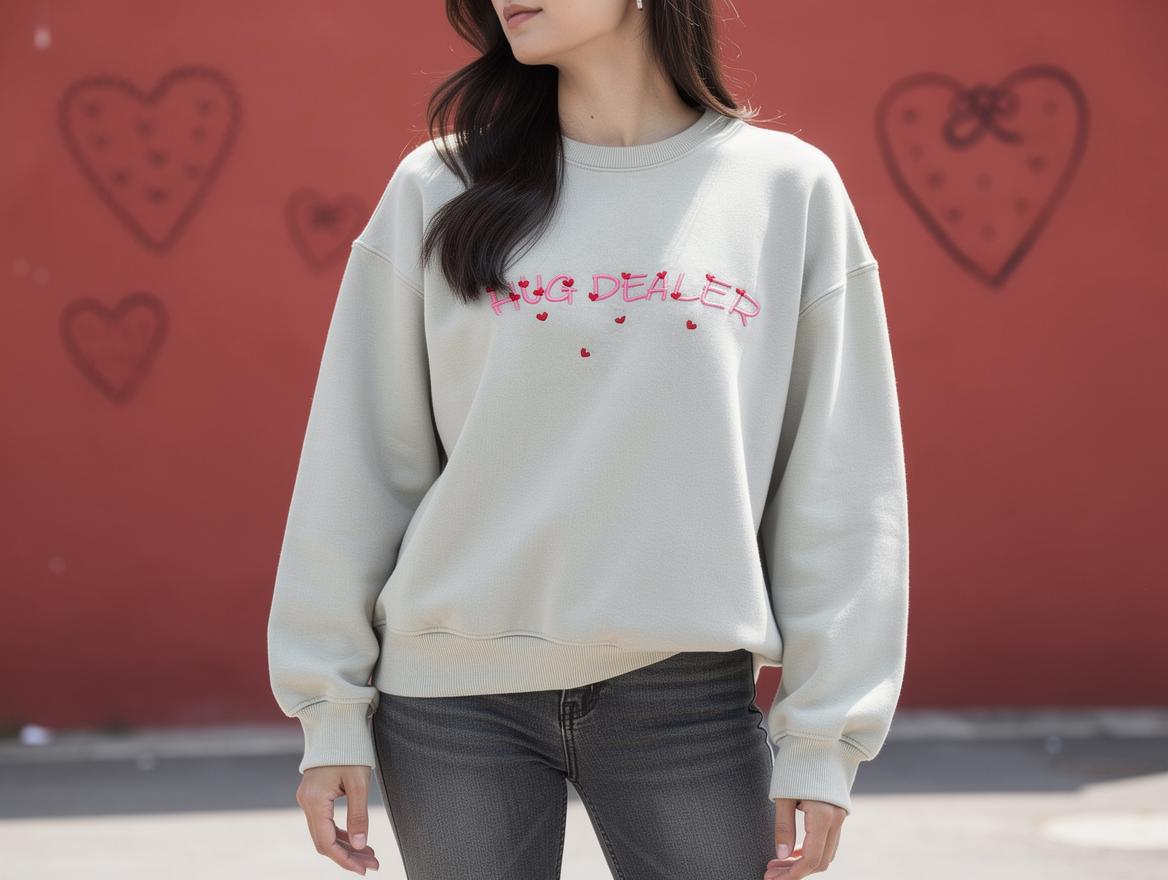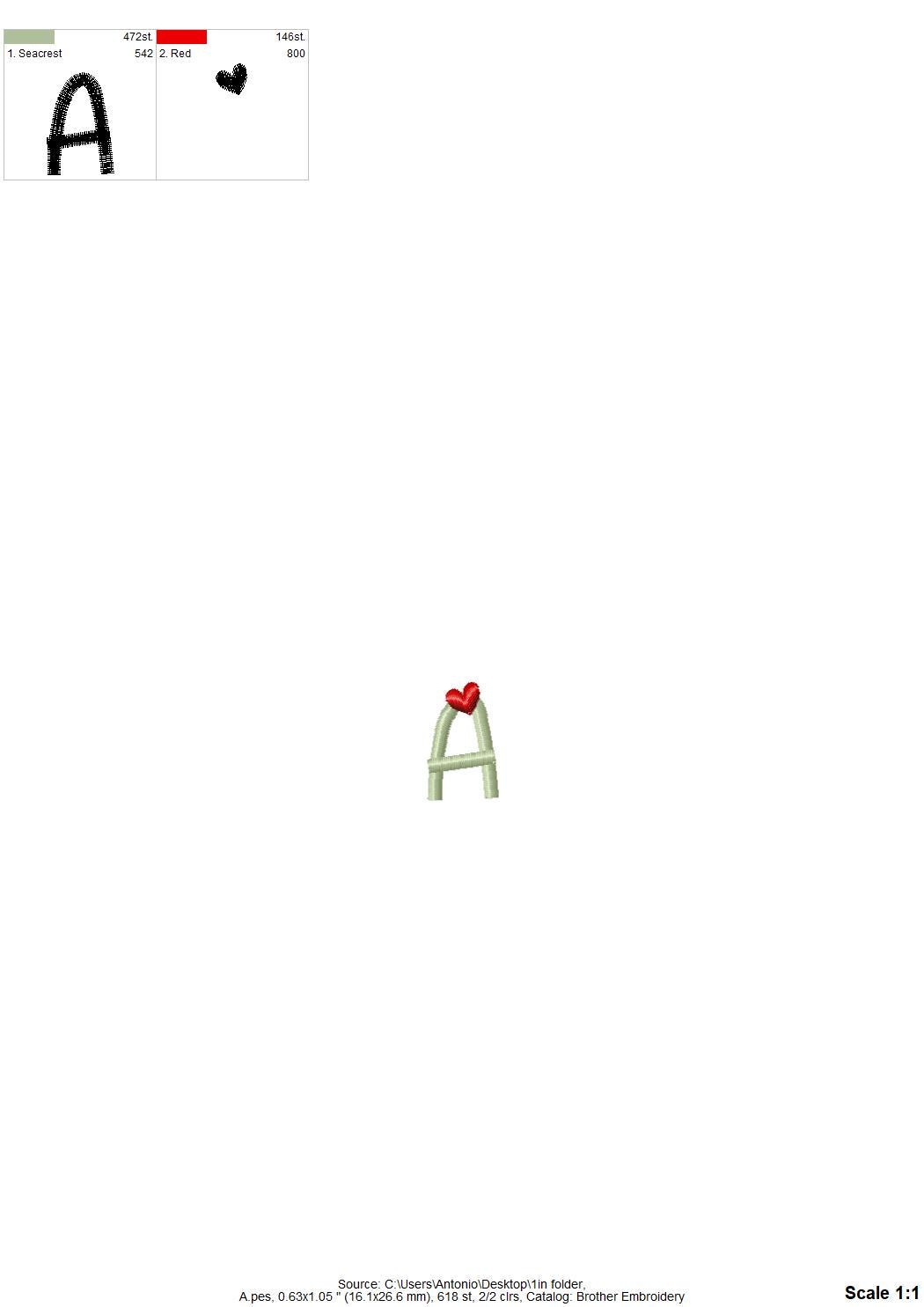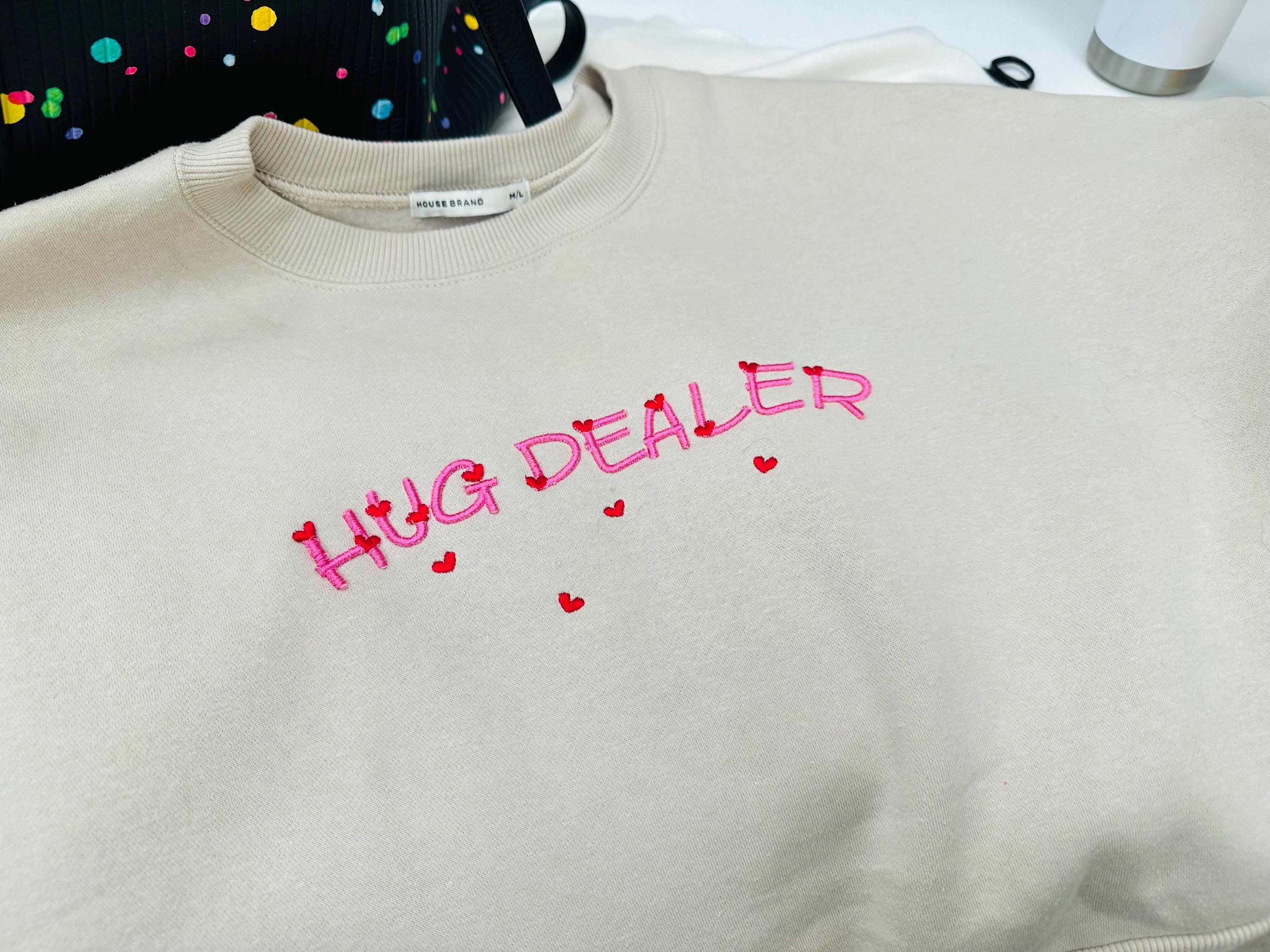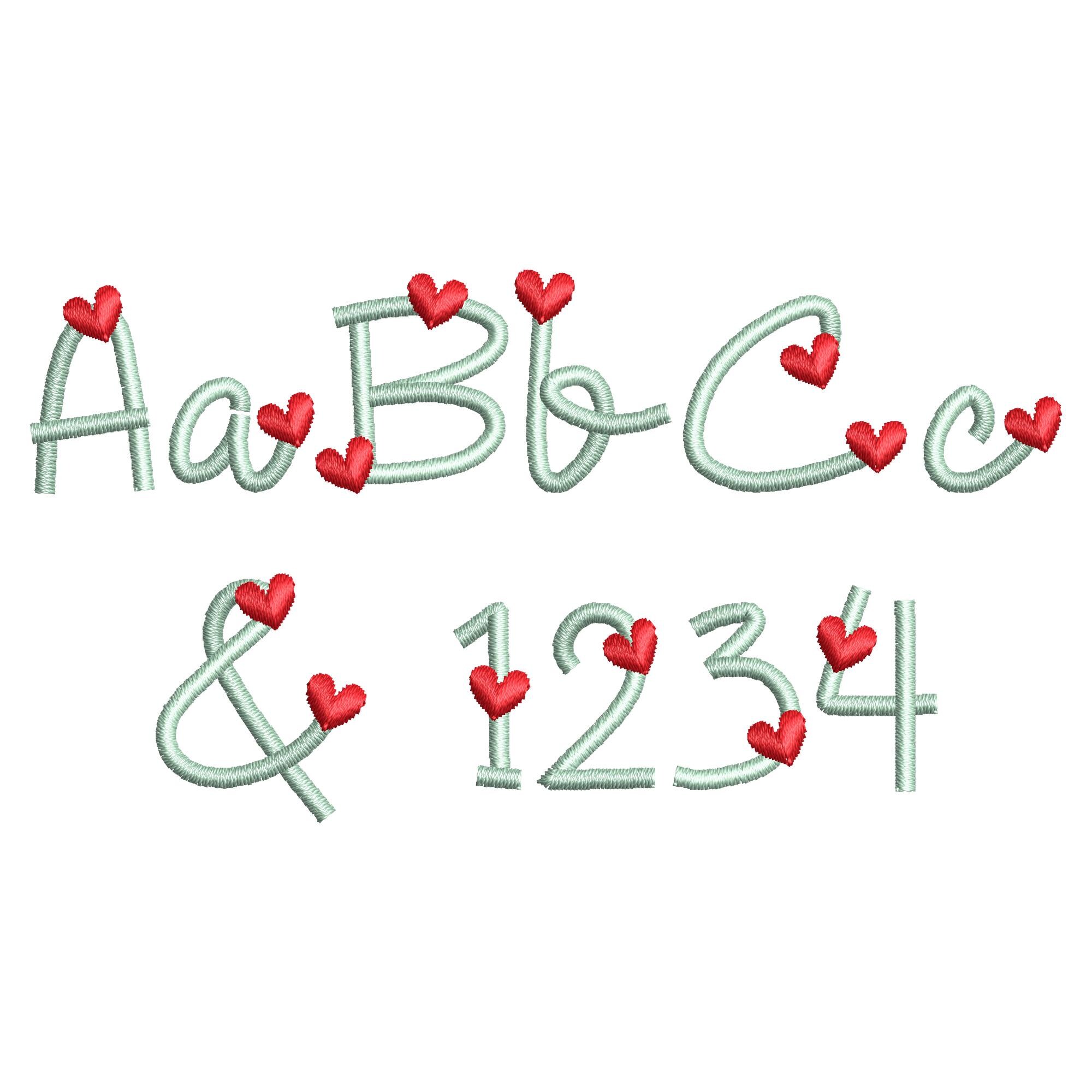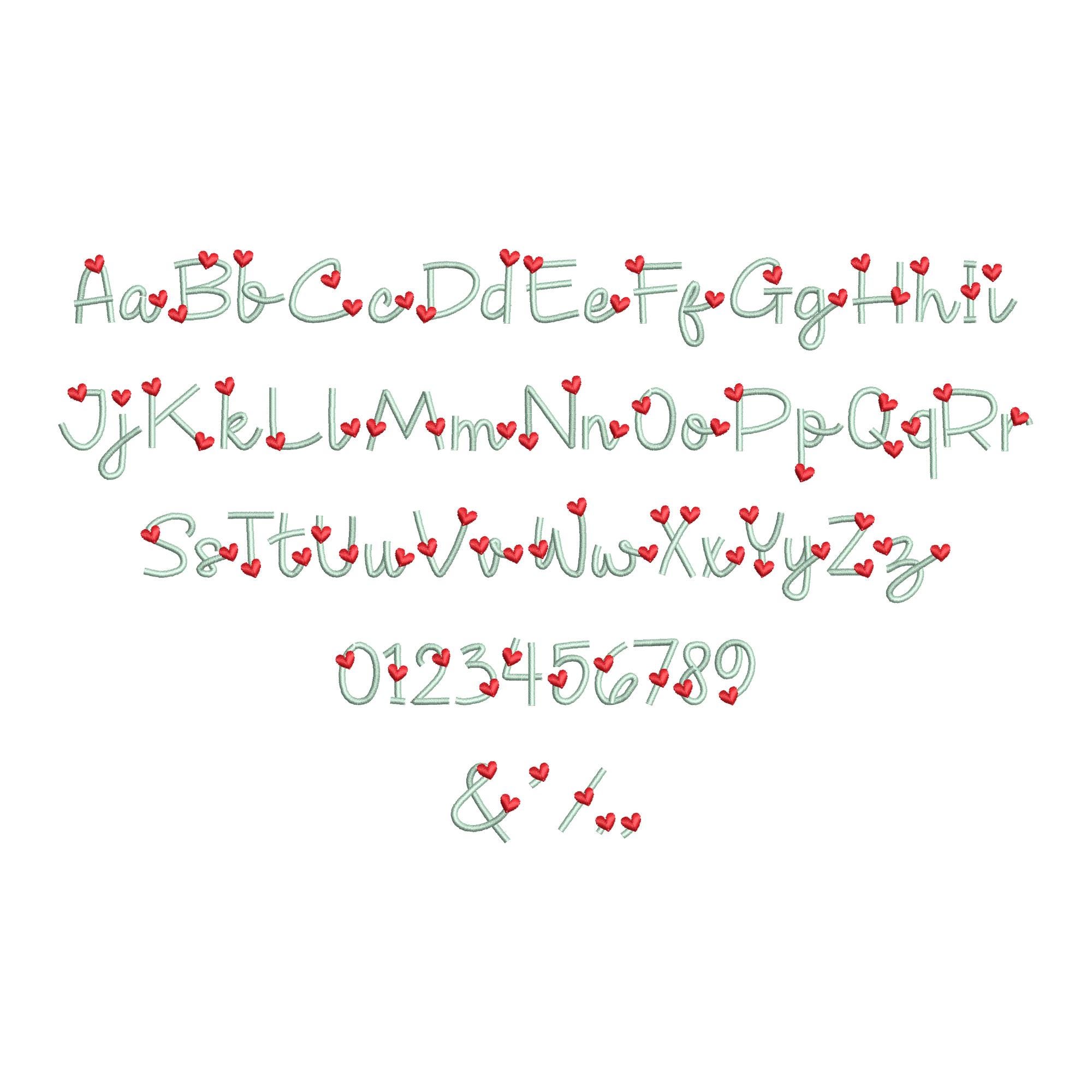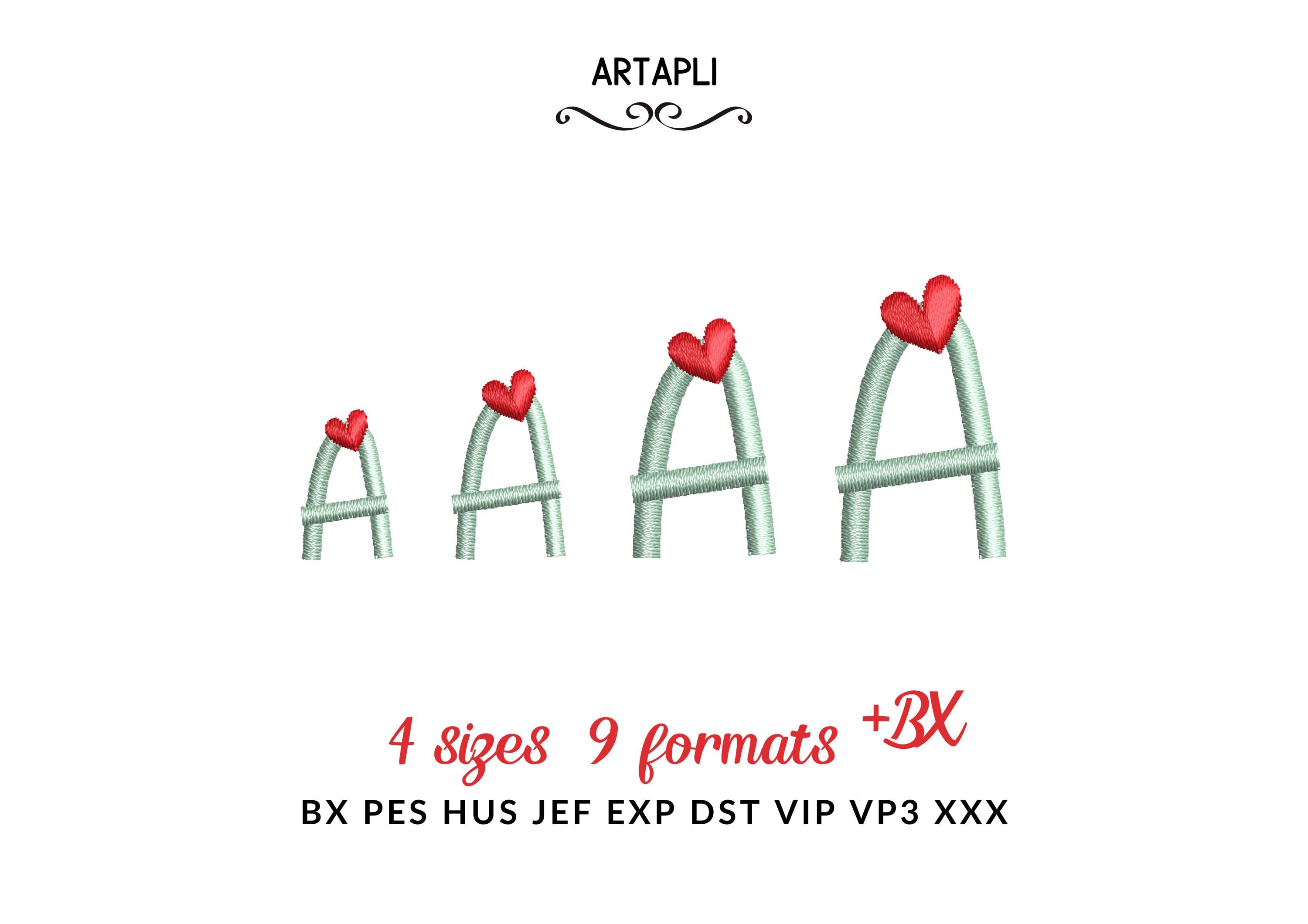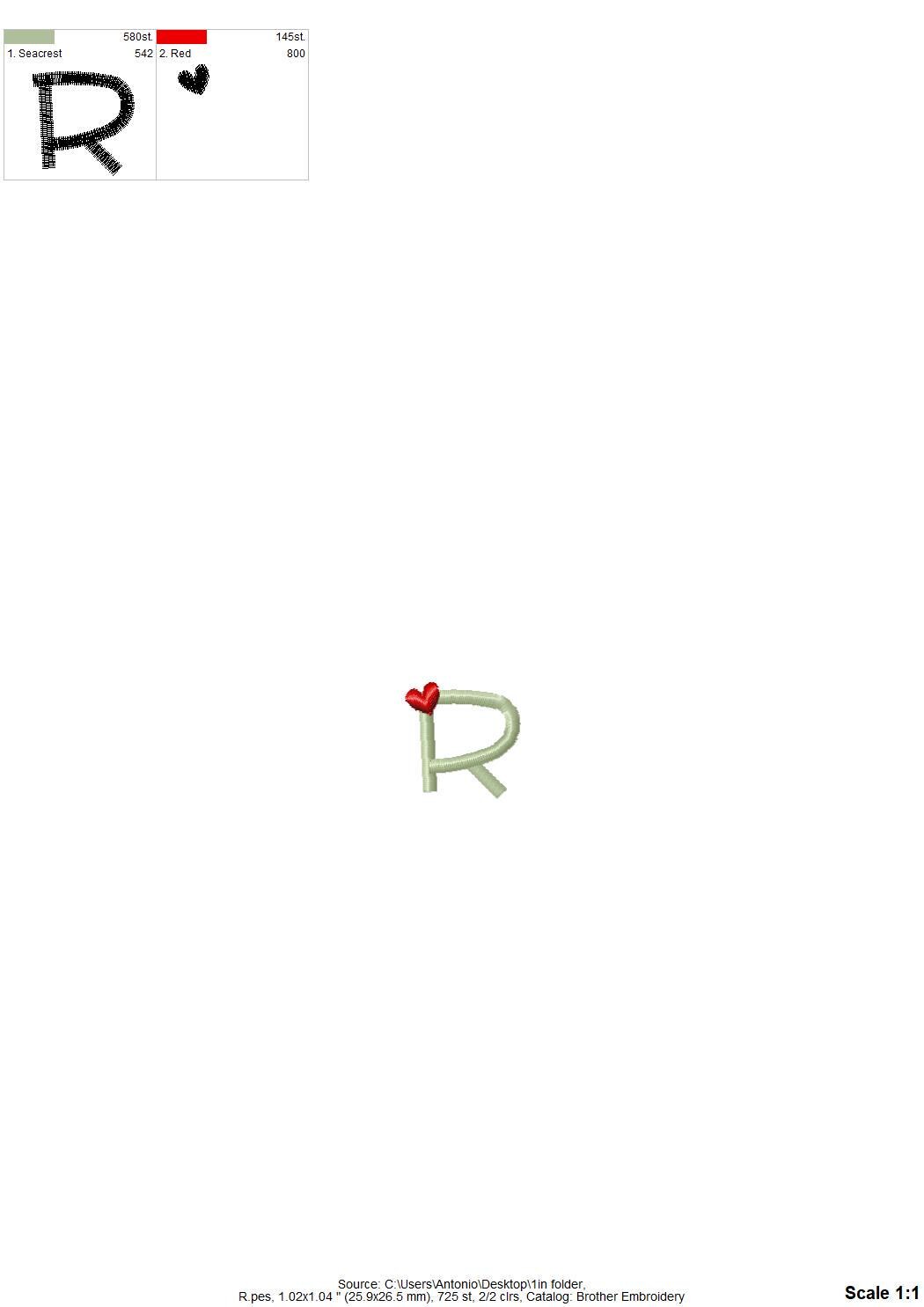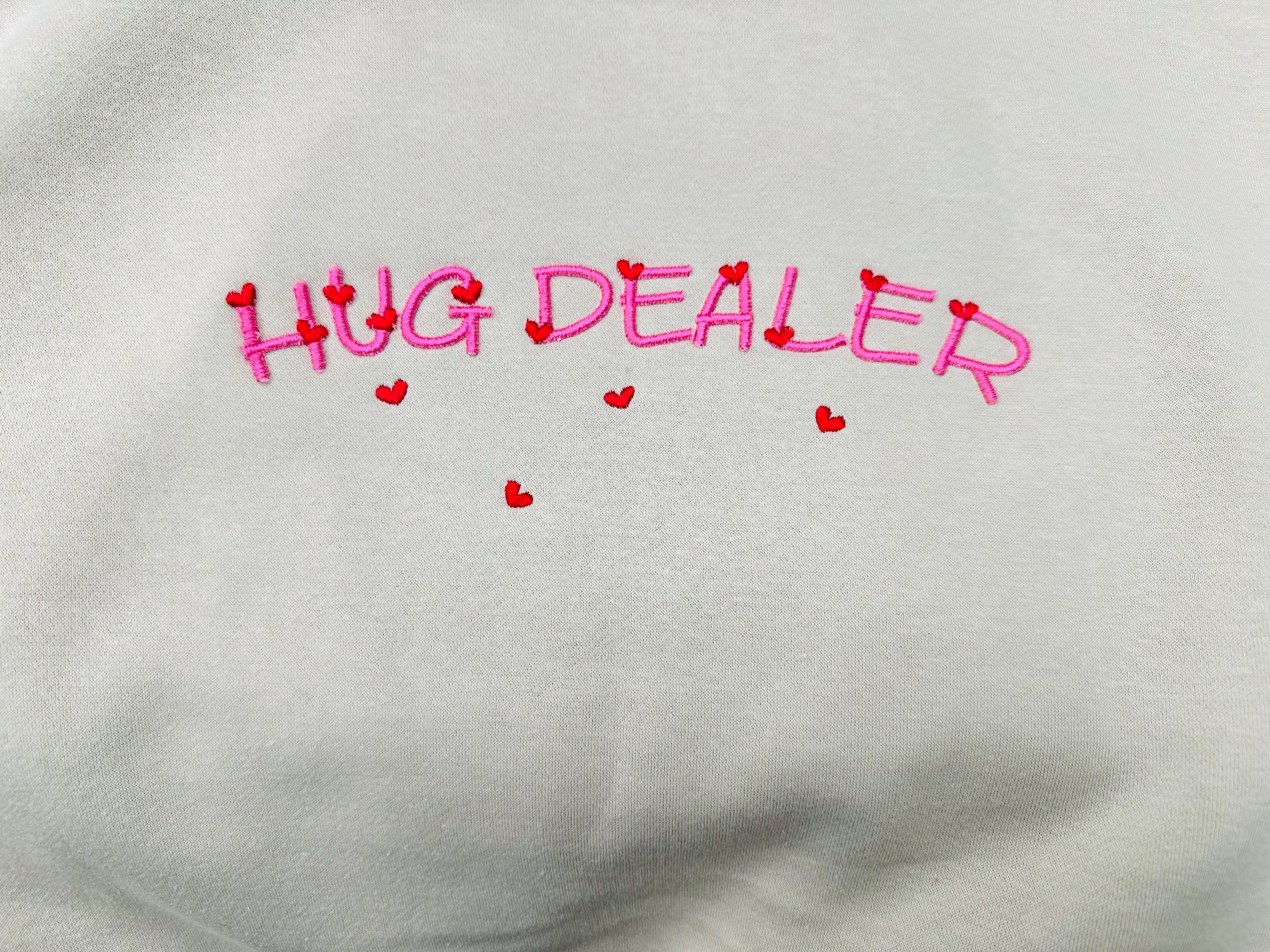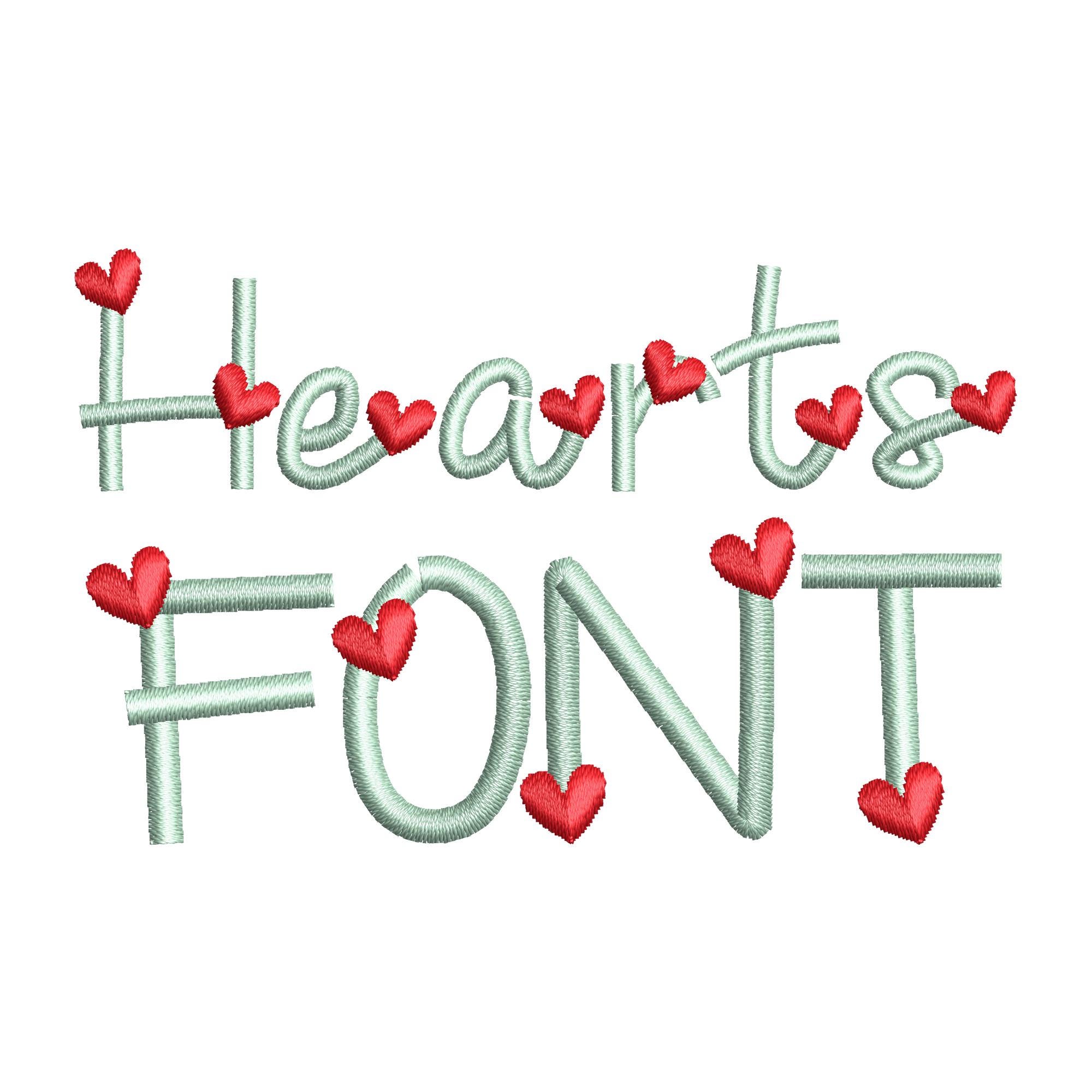
Hearts Font satin stitch line Alphabet Monogram machine embroidery designs handwritten Valentine Heart letters mini sizes 0.7 up to 1.3 inch
Entire alphabet: uppercase and lowercase letters, numbers, and punctuation as shown in the image.